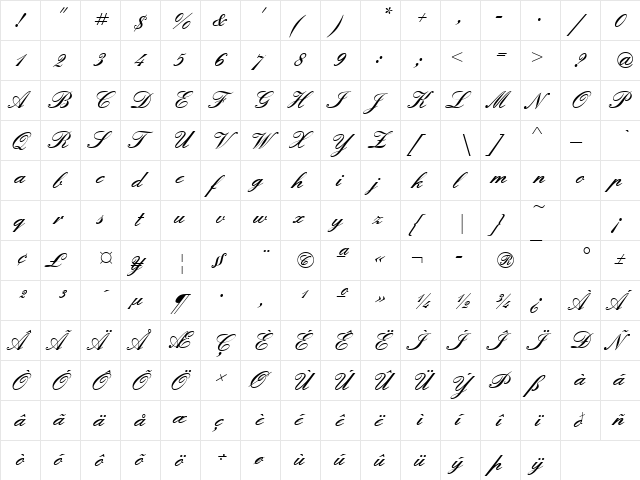
EnglischeSchTDemBol Regular
Design Context for EnglischeSchTDemBol Typeface
EnglischeSchTDemBol is a composed and adaptable typeface that performs quietly and consistently across a wide range of design contexts.